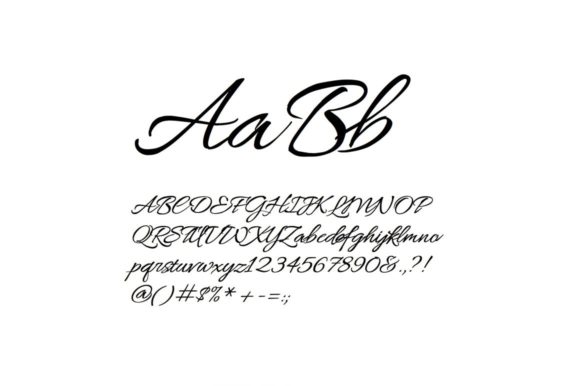
Clarion Font
About Clarion Font
Clarion is a delicate, vintage styled and flowing handwritten font. It has beautiful and well balanced characters and as a result, it matches a wide pool of designs. Add it to your most creative ideas and notice how it makes them come alive!